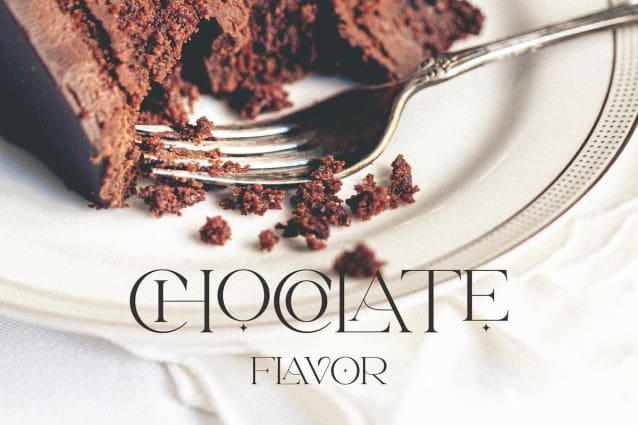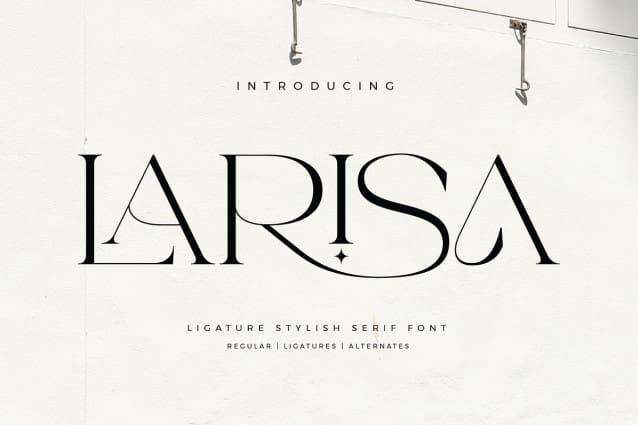
Larisa Font
Larisa Font – Stylish Ligature Typeface, inspired by the famous minimalist logo perfect for the purposes of designing templates, brochures, videos, advertising branding, logos and more.